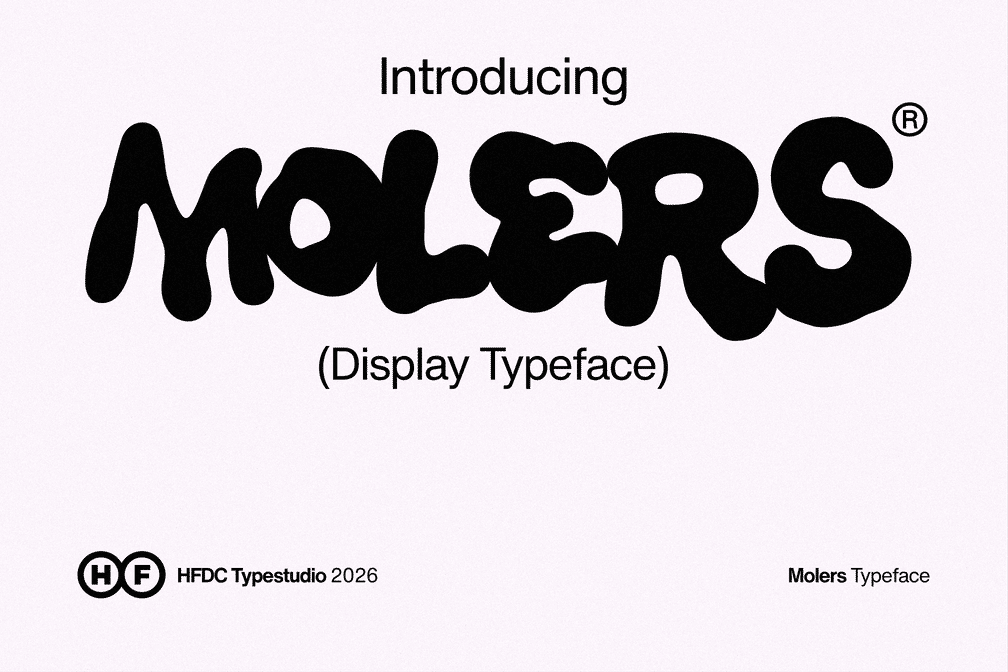
Molers Experimental Display
Molers is a bold experimental display font that embraces imperfection, creativity, and playful expression. Its fluid, organic letterforms feature unconventional shapes, rounded edges, and quirky details that give every word a distinctive handmade personality. Designed to break away from traditional typography rules, Molers delivers a fresh and eye-catching visual impact.
Whether you’re creating posters, album covers, branding projects, packaging, social media graphics, or creative merchandise, Molers adds a fun, energetic, and unconventional character that instantly stands out. Its unique aesthetic makes it perfect for designers who want to explore bold visual storytelling and push creative boundaries.
Perfect for:
• Experimental design projects
• Posters and headlines
• Album and book covers
• Creative branding
• Packaging design
• Social media graphics
• Children’s products
• Artistic and playful layouts
Let your ideas move beyond the ordinary with Molers, an experimental font designed for fearless creativity.